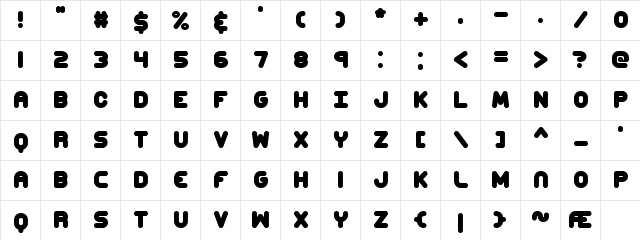
Corpulent Caps BRK Regular
| Foundry | ƎIGMA FONTS |
| Designer | ƎIGMA FONTS - Brian Kent |
Design Context for Corpulent Caps BRK Typeface
Corpulent Caps BRK takes a measured approach to typography — its balanced proportions and neutral character make it a reliable workhorse for both digital and print work.